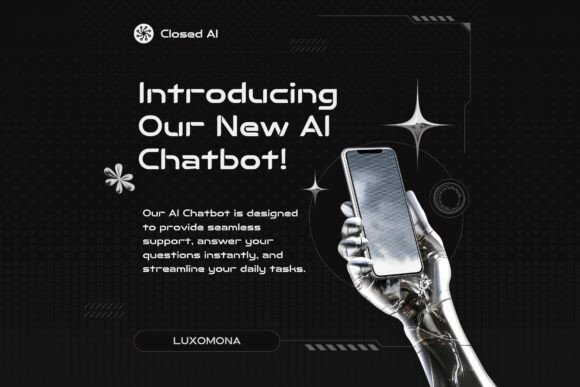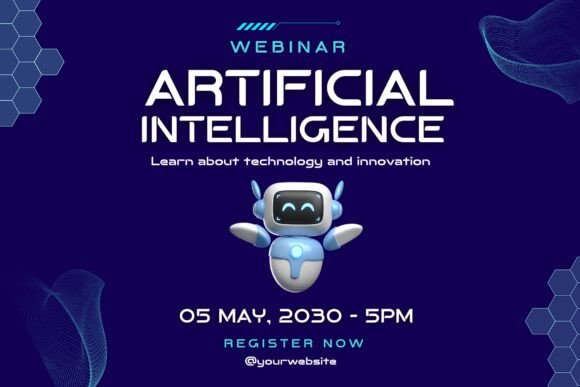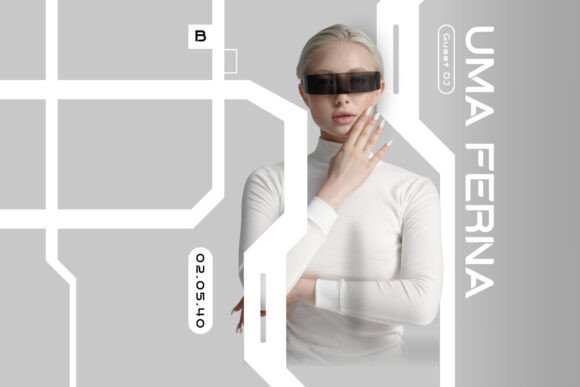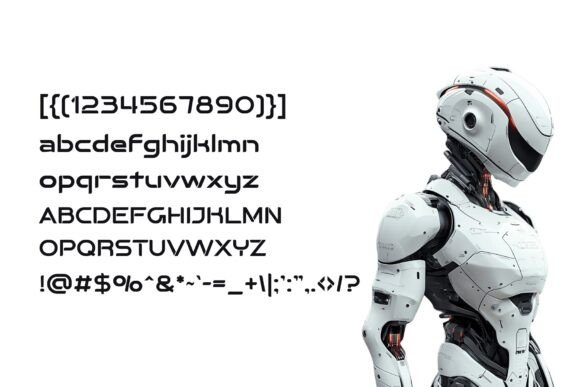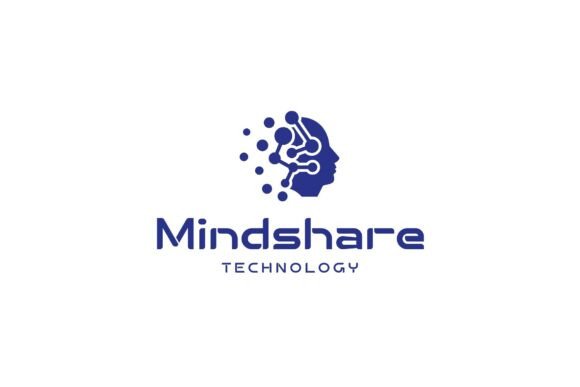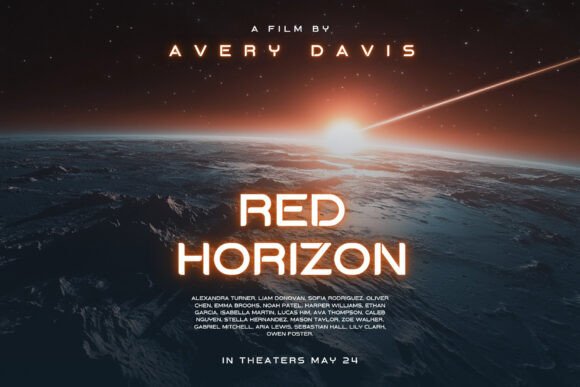
Introduction to Luxomona Font Font
Fonts play a crucial role in design, and the Luxomona Font font is a typeface that brings both character and versatility to any project. Whether you’re working on a branding project, a website, or a print design, the Luxomona Font font offers a unique style that can elevate your work.
Step into the future with Luxomona, a cutting-edge typeface inspired by artificial intelligence, sleek technology, and modern innovation.
Designed with style, precision, and ultimate legibility, Luxomona merges futuristic aesthetics with functional elegance, making it the perfect choice for brands that dare to lead Whether youβre crafting bold branding, high-tech flyers, captivating posters, sleek UI designs, or standout social media graphics, Luxomona adapts effortlessly to any digital or print project.
Key Features of Luxomona Font Font
Why Choose Luxomona Font Font?
The Luxomona Font font is more than just a typeface β it’s a design tool that helps you communicate your message with style and clarity. Its unique character set and versatile design make it suitable for a wide range of applications, from elegant invitations to bold headlines.
With its carefully crafted letterforms and balanced proportions, the Luxomona Font font ensures readability and visual appeal across all mediums.
What makes Luxomona Font font special?
The Luxomona Font font stands out with its unique design, exceptional readability, and versatility across various design applications.